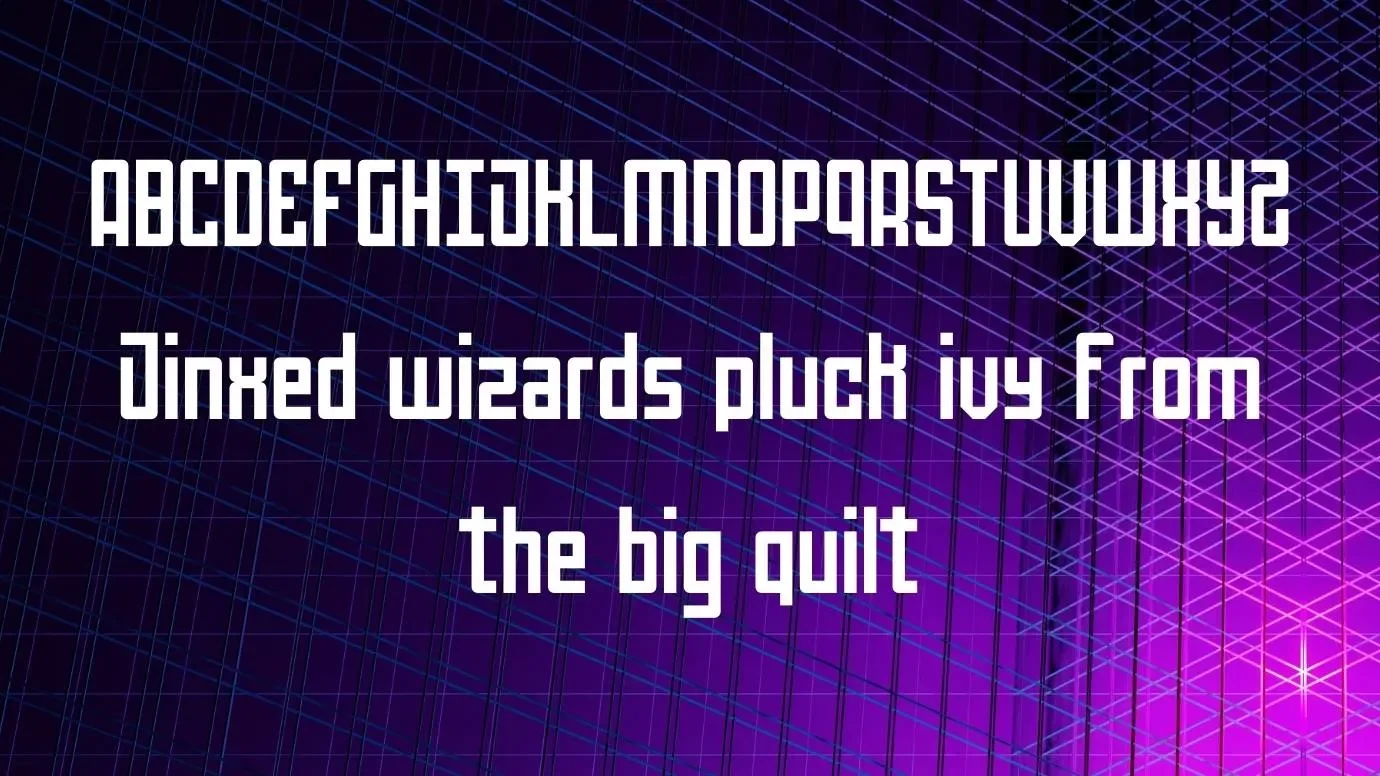
Here, We are going to introduce Mechanical Font which is a famous sans serif typeface. This font was designed by InspiraType. It is mostly used for classic posters. This font comes in more than 69 characters along with 2048 units per em. It has four weights and many styles.
This font is mostly suitable for apparel design purposes. It consists of OpenType alternates, common ligatures, numerals, and punctuations. The designer can easily use it for Letterhead and different logo designs. It is suitable for making different types of card designs.
Reason to Use Mechanical Font
You can utilize this attractive font for making infographics designs. This outstanding typeface is suitable for document drafting purposes. It is suitable for presentation designs, CV designing, and a lot more related purposes. This font is suitable for product promo designs.
This gorgeous font is suitable for mug designs, t-shirt designs, and pants designs. You can utilize this font for web page designs and blog designs. It is best for pairing with Ginora Sans Font which is suitable for new design purposes.
What is the kind of Mechanical Font?
The basic type of this font is sans serif. This modern font was designed and shared by InspiraType.
Is there any similar font to Mechanical Font?
There are a huge number of fonts that are similar to this typeface but liquido font is the perfect option for this purpose.